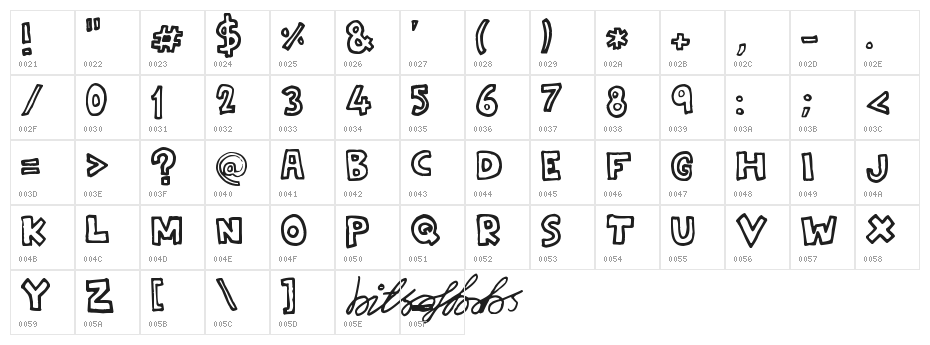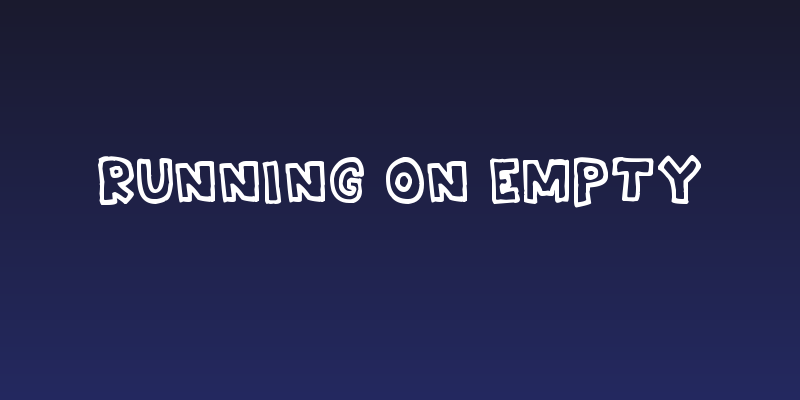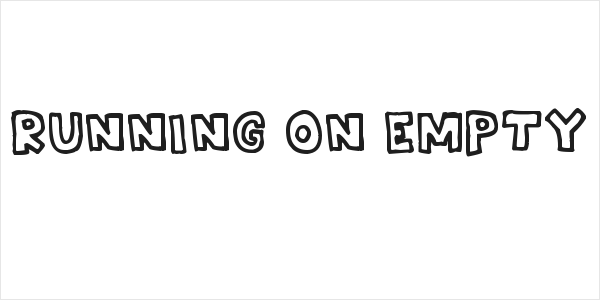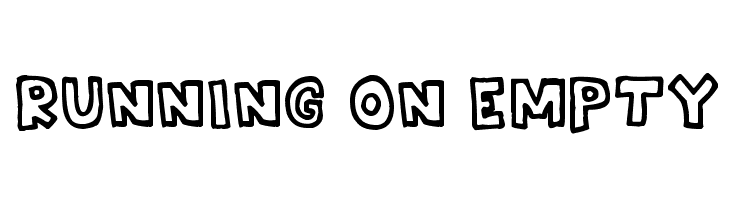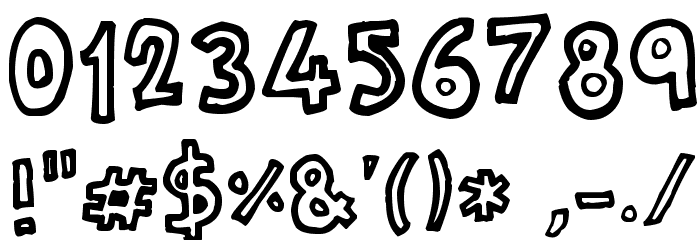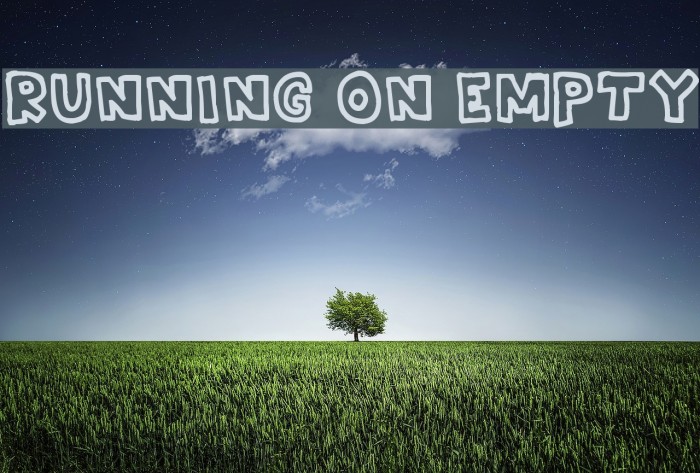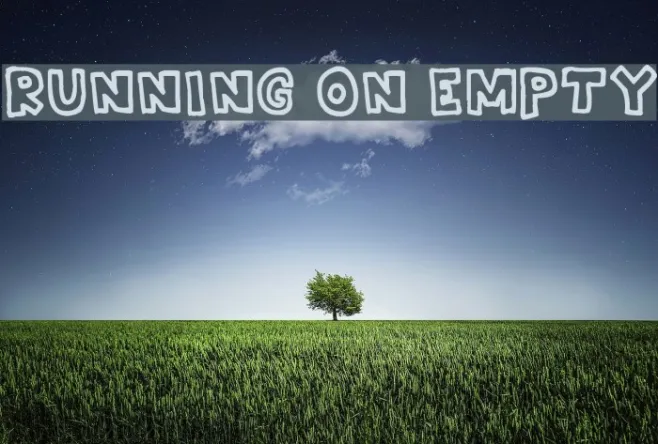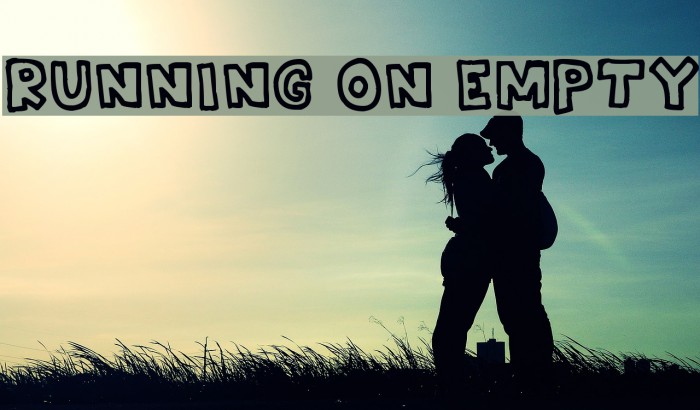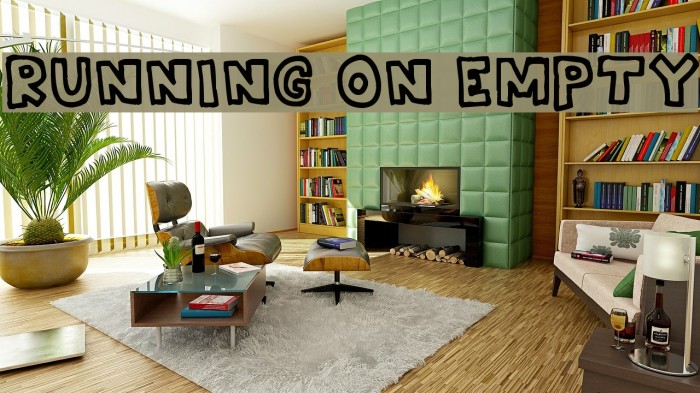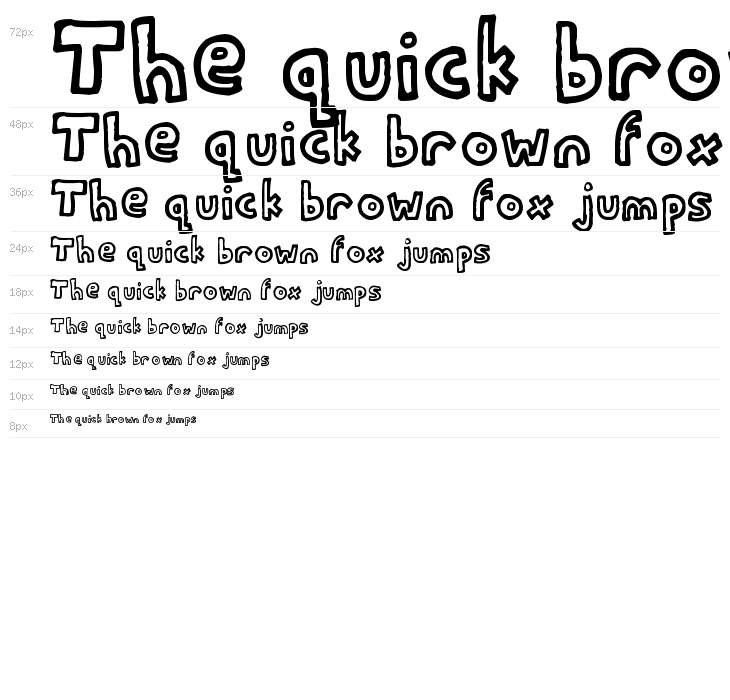
RUNNING ON EMPTY Font
RUNNING ON EMPTY Description
This playful and bold font features a hand-drawn, cartoonish style with thick, uneven strokes that give it a lively and energetic appearance. The letters are outlined with a consistent thickness, creating a bubble-like effect that adds to its whimsical charm. The uppercase and lowercase letters maintain a consistent style, with rounded edges and a slightly irregular baseline, enhancing its informal and friendly look. The numerals and special characters follow the same design principles, ensuring a cohesive appearance across all glyphs. This font is perfect for projects that require a fun and engaging visual element.
| Overall Style | Playful, Cartoonish |
| Proposed Projects | Ideal for children's books, comic strips, playful branding, and party invitations. |